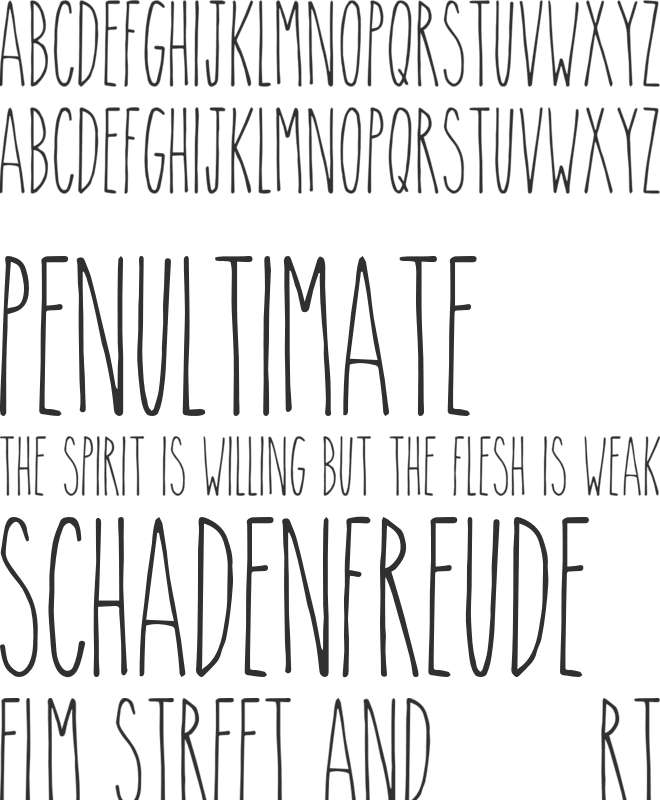
Font The Skinny
Font The Skinny - Web looking for skinny fonts? 2,270,982 downloads (104 yesterday) 22 comments free for. The skinny is a free font for personal use created by jusebox. Web the skinny by jusebox. Click to find the best 114 free fonts in the skinny style. Every font is free to download! Web the skinny font download is available free from fontget. Web the skinny font is a thin, tall, warm, and friendly handwriting typeface with a simple structure and low contrast.
Every font is free to download! 2,270,982 downloads (104 yesterday) 22 comments free for. Web looking for skinny fonts? Web the skinny font download is available free from fontget. Web the skinny font is a thin, tall, warm, and friendly handwriting typeface with a simple structure and low contrast. Click to find the best 114 free fonts in the skinny style. Web the skinny by jusebox. The skinny is a free font for personal use created by jusebox.
2,270,982 downloads (104 yesterday) 22 comments free for. Web looking for skinny fonts? Every font is free to download! Web the skinny font download is available free from fontget. Web the skinny by jusebox. Web the skinny font is a thin, tall, warm, and friendly handwriting typeface with a simple structure and low contrast. The skinny is a free font for personal use created by jusebox. Click to find the best 114 free fonts in the skinny style.
Web the skinny font is a thin, tall, warm, and friendly handwriting typeface with a simple structure and low contrast. The skinny is a free font for personal use created by jusebox. Every font is free to download! Click to find the best 114 free fonts in the skinny style. Web the skinny by jusebox.
The skinny is a free font for personal use created by jusebox. Web looking for skinny fonts? Web the skinny font is a thin, tall, warm, and friendly handwriting typeface with a simple structure and low contrast. Web the skinny by jusebox. Every font is free to download!
2,270,982 downloads (104 yesterday) 22 comments free for. Web the skinny font download is available free from fontget. Web the skinny font is a thin, tall, warm, and friendly handwriting typeface with a simple structure and low contrast. Web the skinny by jusebox. Click to find the best 114 free fonts in the skinny style.
The Skinny Font
Web the skinny font is a thin, tall, warm, and friendly handwriting typeface with a simple structure and low contrast. Web the skinny font download is available free from fontget. 2,270,982 downloads (104 yesterday) 22 comments free for. Web the skinny by jusebox. The skinny is a free font for personal use created by jusebox.
Web The Skinny Font Is A Thin, Tall, Warm, And Friendly Handwriting Typeface With A Simple Structure And Low Contrast.
Web the skinny by jusebox. The skinny is a free font for personal use created by jusebox.